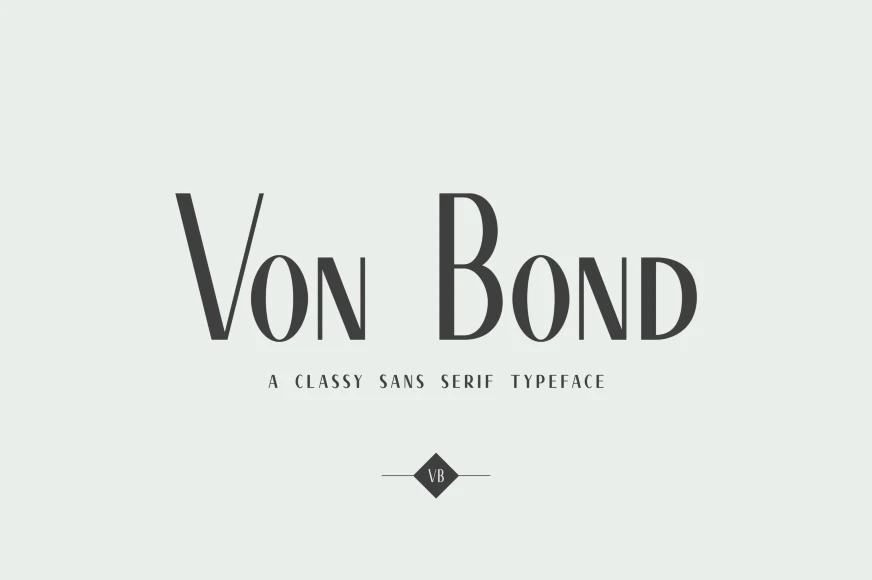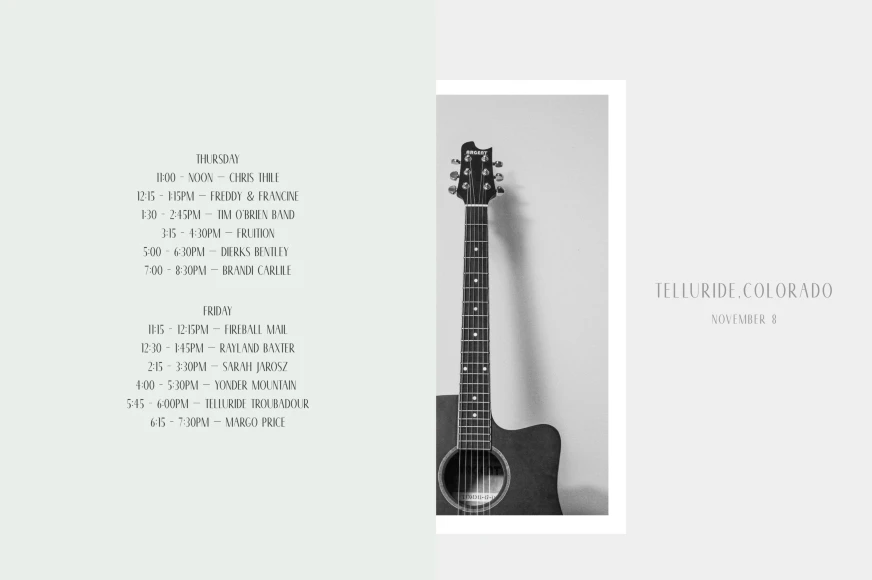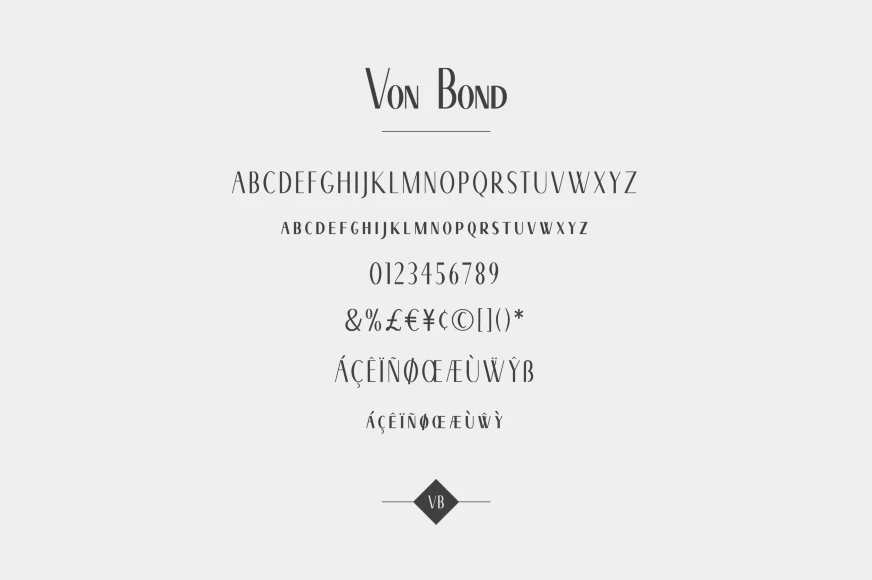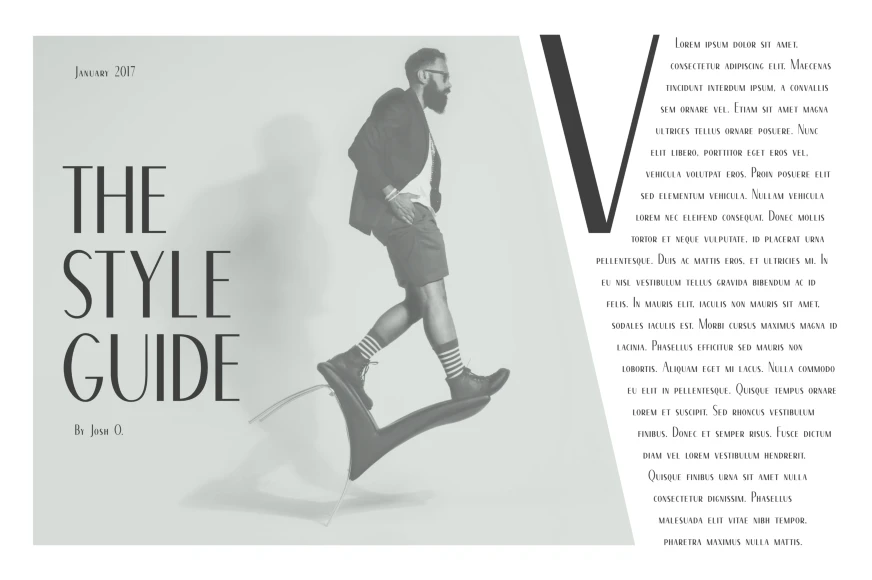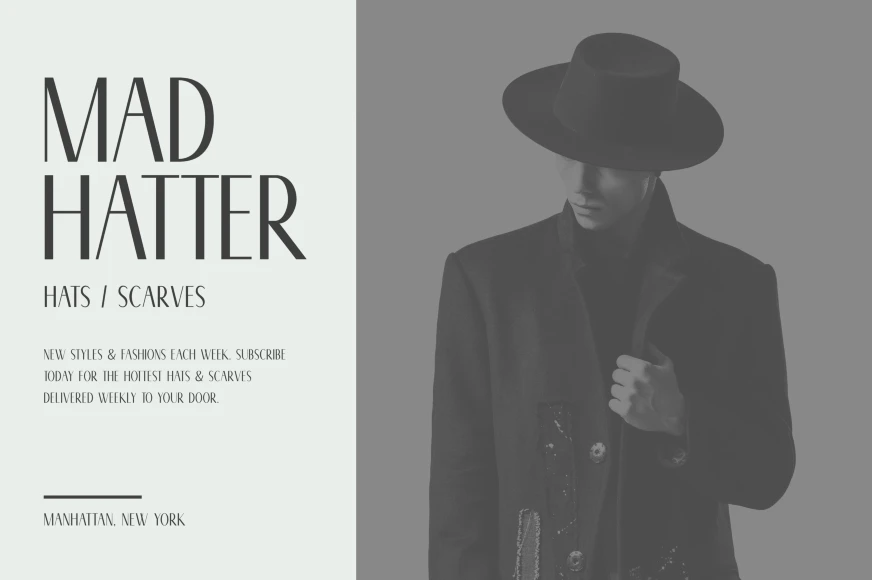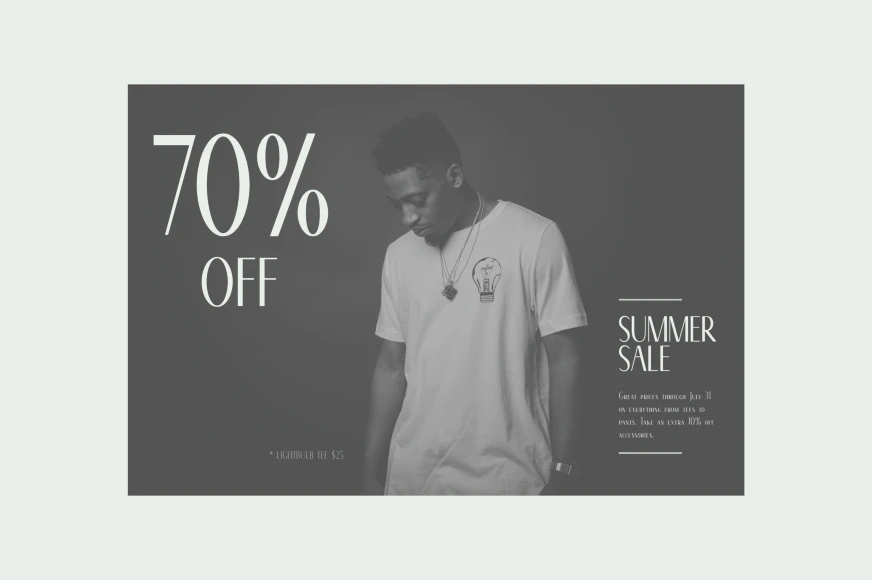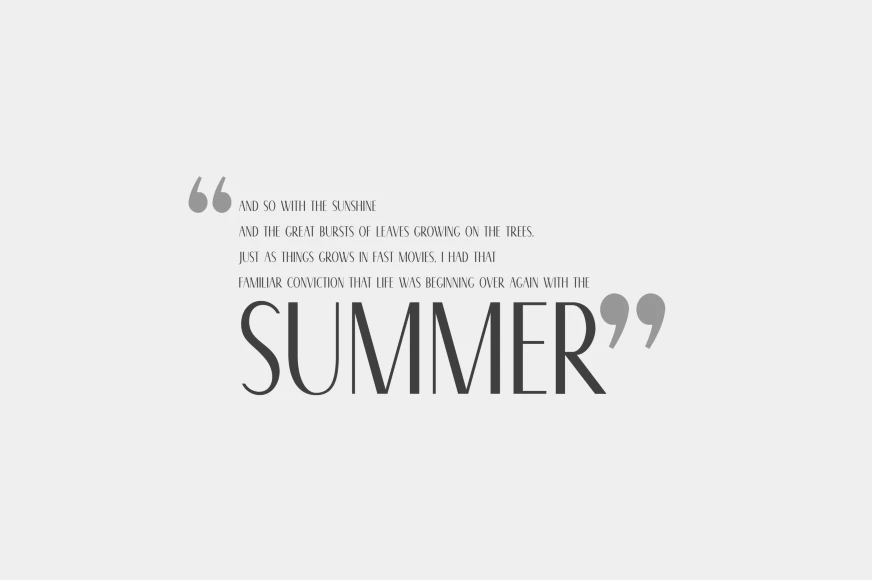
Von Bond
By Josh Ownby
Von Bond Regular
Von Bond is a high-contrast, condensed font based on vintage serif letterforms, capturing the elegance of the original in the simplicity of a modern sans serif. Alternating thick and thin strokes lends sophistication to your designs, which can be applied to everything from fashion editorials to custom invitations and social media graphics. Create gorgeous headlines with all-caps typography or mix with the small caps for a classic touch.